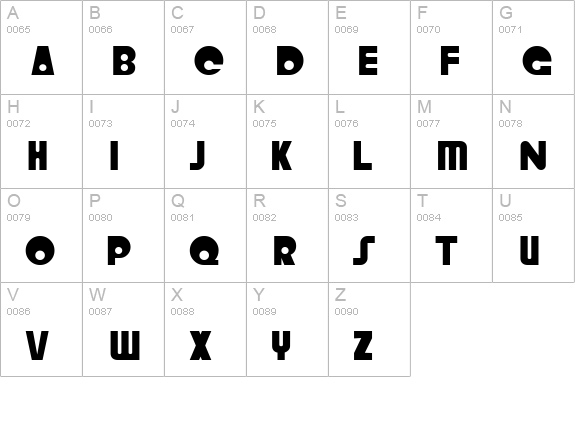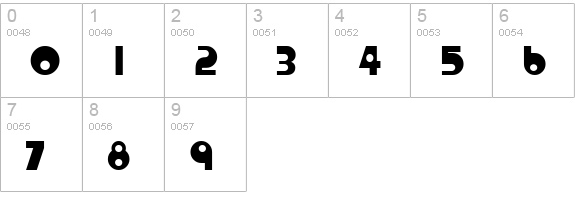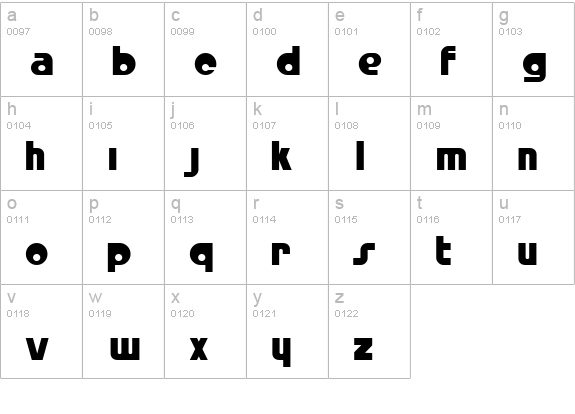
Crystal Radio Kit Font Details
Introducing the exquisite Crystal Radio Kit font, a beautifully crafted typeface that exudes elegance and sophistication. This unique font combines sleek lines with a classic aesthetic, making it perfect for a wide range of design projects. The Crystal Radio Kit font is versatile and can be used for anything from logos to invitations, posters, and more. The best part? This stunning font is completely free to download at FontsMarket.com. With its timeless appeal and modern twist, the Crystal Radio Kit font is sure to elevate your designs and leave a lasting impression. Download this exceptional font today and experience the beauty and versatility it has to offer.